Best Nostalgic Soft Aesthetic Fonts 2026: Reimagine Digital Nostalgia
Build the Mood Around the Font
Choosing the best nostalgic soft aesthetic fonts for 2026 means balancing personality with restraint. Start by deciding whether the project should feel dreamy, intimate, playful, or quietly futuristic.
Treat softness as an art-direction goal, not a requirement that every letter be delicate. Use muted colors, generous spacing, and personal photography to balance stronger lettering. These selections offer different starting points for that approach, rather than five identical versions of a gentle aesthetic.
Reserve expressive fonts for titles and brand names, with a readable companion for captions and longer text.
Create Nostalgia Without Copying a Decade
Build a reference board around a particular memory: a personal playlist, a well-used digital camera, a favorite magazine, or an early online community. Choose a few visual cues instead of combining every recognizable retro effect.
For a listening café, try dusty blue, warm cream, candid photographs, and a short typographic headline. Let customer stories provide emotional warmth rather than expecting the typeface alone to create connection.
1. Techno Wave Y2K Style Font
Techno Wave combines chunky geometric forms, pixel-inspired construction, and a retro-futuristic direction associated with early digital culture. Its seven styles offer room to explore related title treatments. To create a softer result, try a restrained variation in dusty lavender against cream, keeping the surrounding layout spacious rather than adding aggressive glitch effects.
PROS: Seven styles, strong geometry, recognizable digital character.
BEST FOR: Music graphics, lifestyle campaigns, creator identities, and nostalgic event posters.
2. Liquid Wave Liquid Display Font
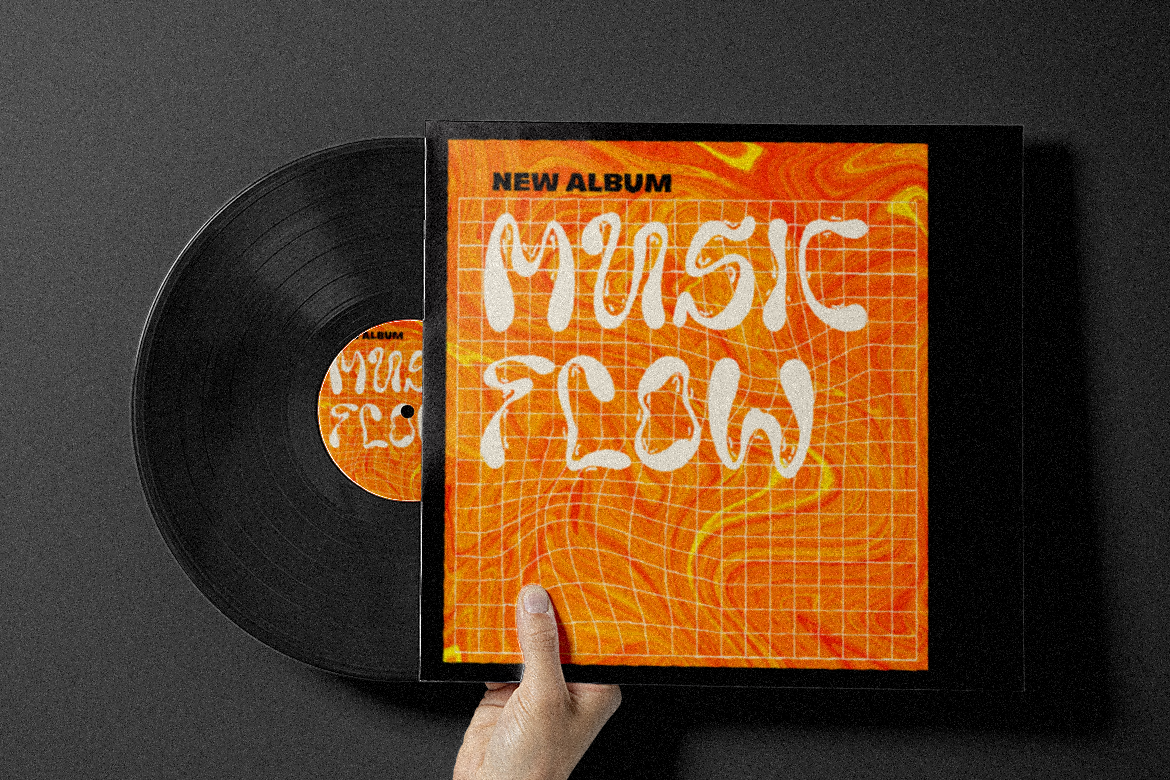
Liquid Wave uses bold curved strokes, organic shapes, and irregular contours that suggest continuous movement. Its fluid construction offers a more naturally rounded starting point than the angular options here. Try a short product name in muted peach with dark supporting text, or use it on a dreamlike editorial cover with restrained photographic texture.
PROS: Flowing contours, organic rhythm, expressive rounded shapes.
BEST FOR: Beauty packaging, lifestyle identities, album artwork, and experimental editorial titles.
3. Nebula Avenue Duo Techno Brush Font
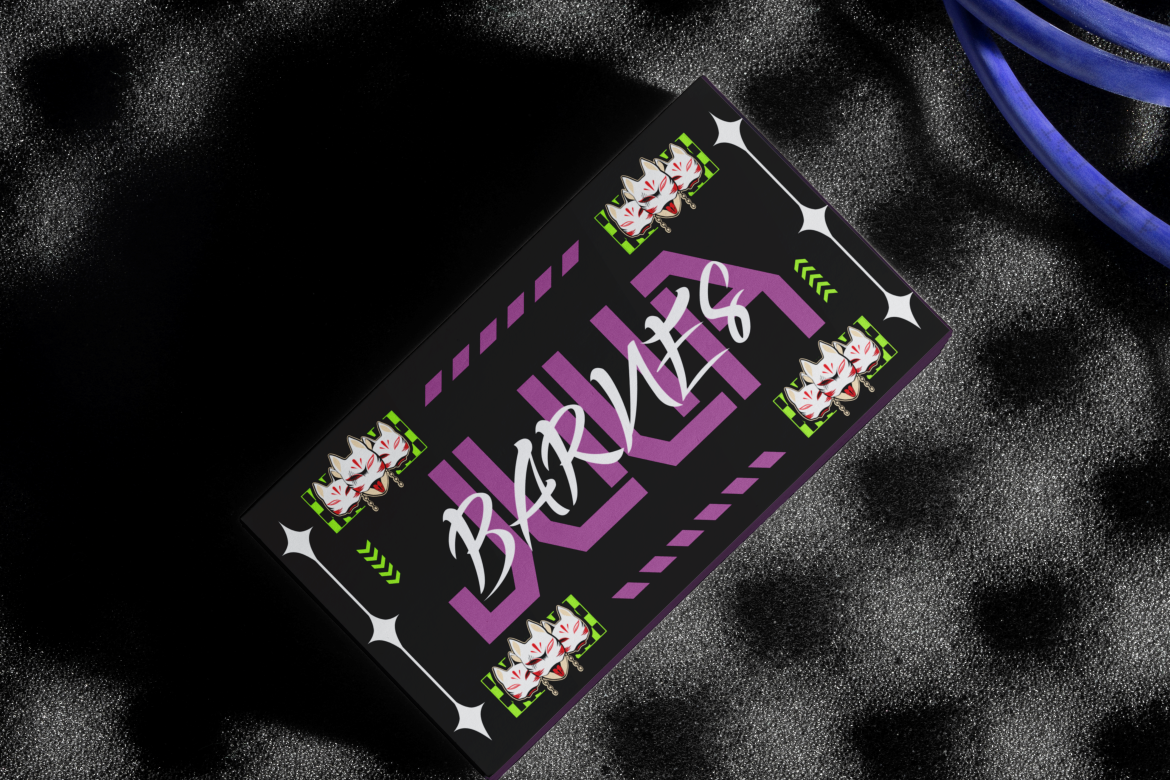
Nebula Avenue pairs geometric techno lettering with an expressive brush script, bringing structured and handwritten voices into one duo. The contrast provides a useful bridge between futuristic styling and personal expression. For a nostalgic music campaign, use the display component for the main title and a brief brush accent for a handwritten-looking message.
PROS: Complementary styles, geometric structure, expressive brush contrast.
BEST FOR: Music campaigns, fashion editorials, creator branding, and layered poster designs.
4. Bold Brick Logo Font
Bold Brick emphasizes robust lines and a forceful display presence informed by science-fiction aesthetics. It is the assertive option in this selection, not an inherently soft typeface. Use that contrast deliberately: place a compact wordmark on a pale background with candid photography and minimal supporting graphics to test a more approachable treatment.
PROS: Substantial forms, confident presence, distinctive logo character.
BEST FOR: Lifestyle labels, community merchandise, statement packaging, and retro-tech identities.
5. Galactic Module Cyberpunk Futuristic Font
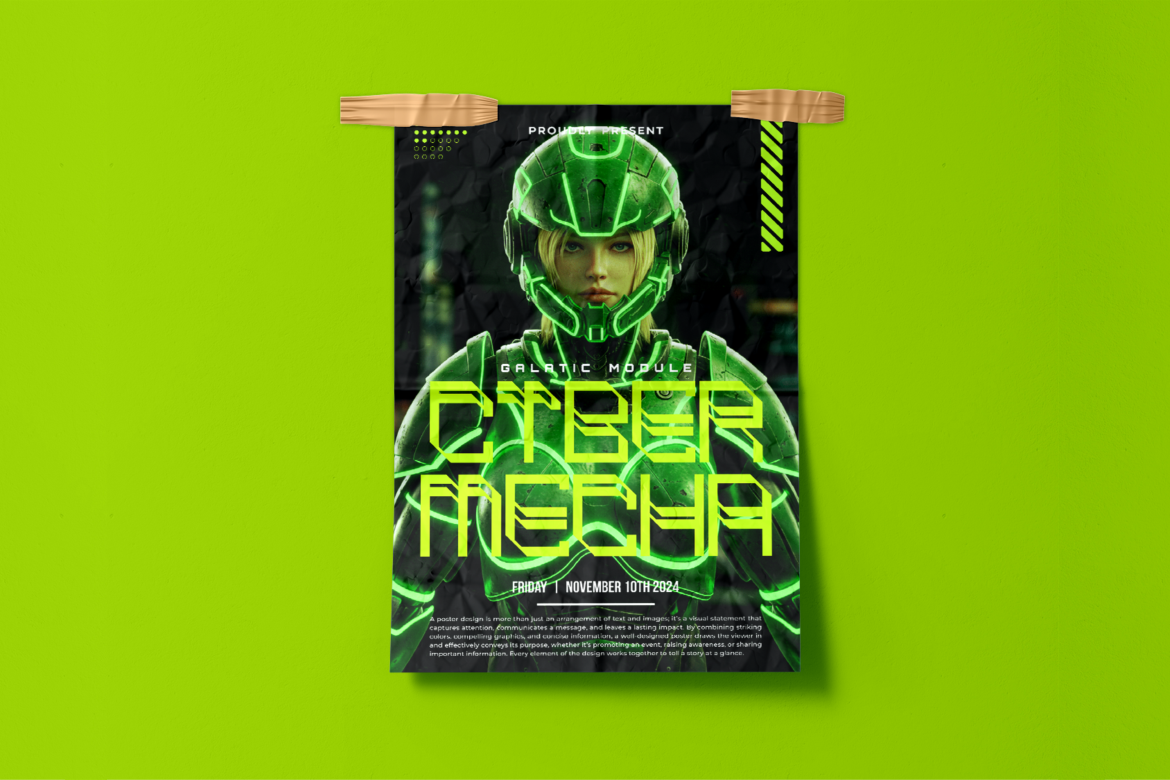
Galactic Module combines sharp angular construction, condensed proportions, and modular detailing with a cyberpunk direction. Its technical character needs careful styling when warmth is the goal. Try slate-blue lettering, generous margins, and a quiet urban photograph instead of neon-heavy backgrounds, reserving the font for one short, recognizable headline.
PROS: Compact proportions, modular detail, distinct futuristic character.
BEST FOR: Electronic music, technology-themed editorials, digital events, and experimental lifestyle campaigns.
Comparison
These are suggested treatments to test, not fixed emotional effects.
| Font | Softer Styling Direction | Starting Application |
|---|---|---|
| Techno Wave | Dusty lavender and spacious layout | Music poster |
| Liquid Wave | Muted peach and organic photography | Product label |
| Nebula Avenue | Structured title with handwritten accent | Editorial spread |
| Bold Brick | Pale background and minimal graphics | Lifestyle wordmark |
| Galactic Module | Slate blue and quiet urban imagery | Digital-event campaign |
Common Mistakes
The first mistake is calling every futuristic font “soft.” Preserve the typeface’s real character and decide whether contrast supports your concept. When the result feels too mechanical, simplify the composition or choose the more fluid option rather than adding decorative clutter.
Explore these PutraCetol Studio fonts using your actual project name. Aim for nostalgia that feels personal and welcoming while keeping the finished identity distinctive and easy to understand.